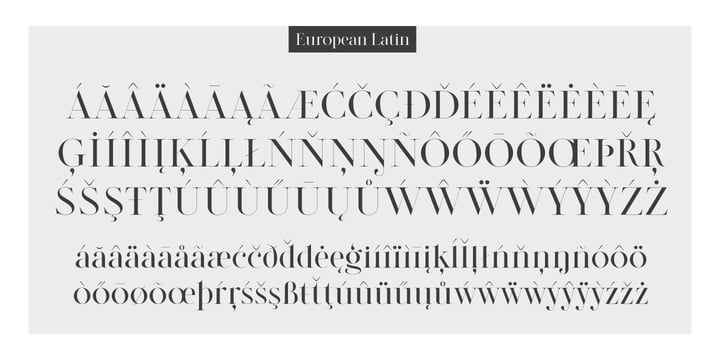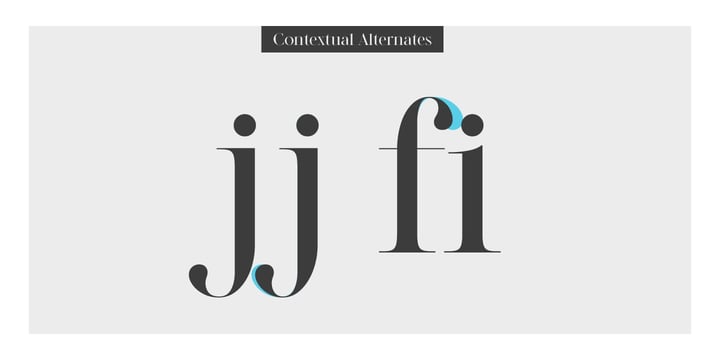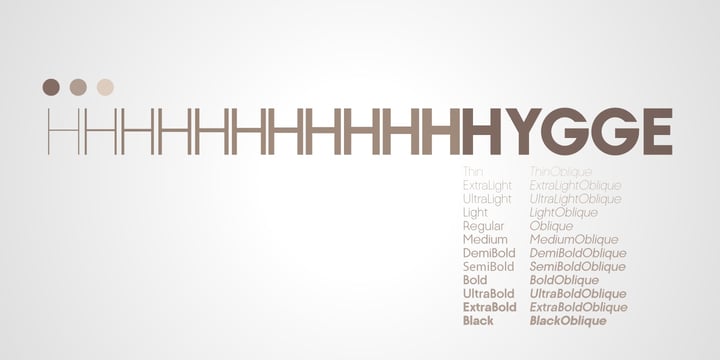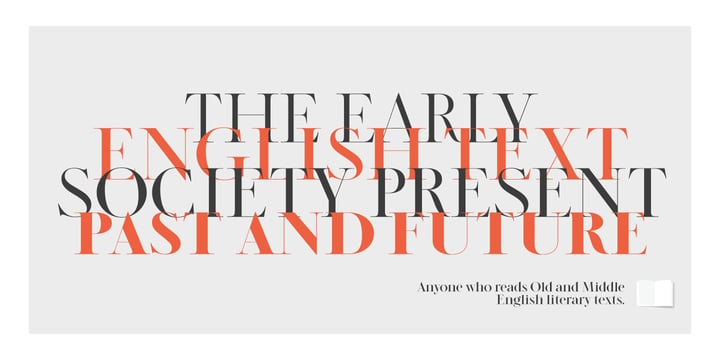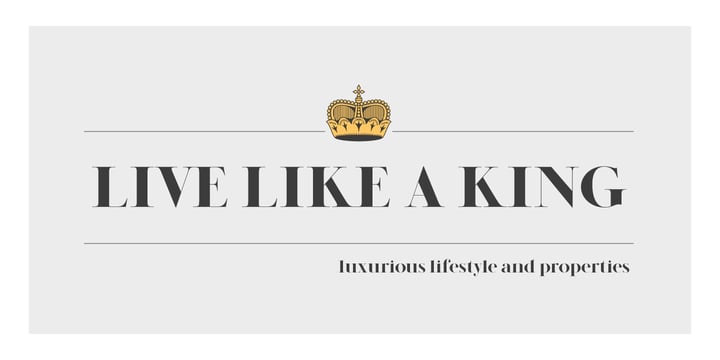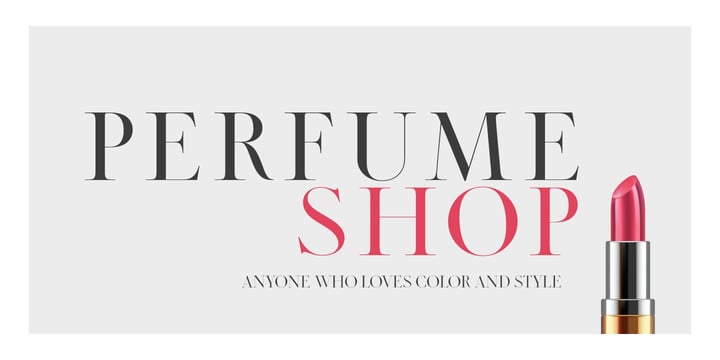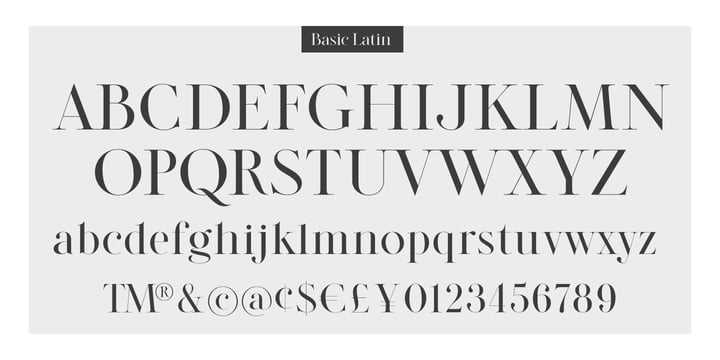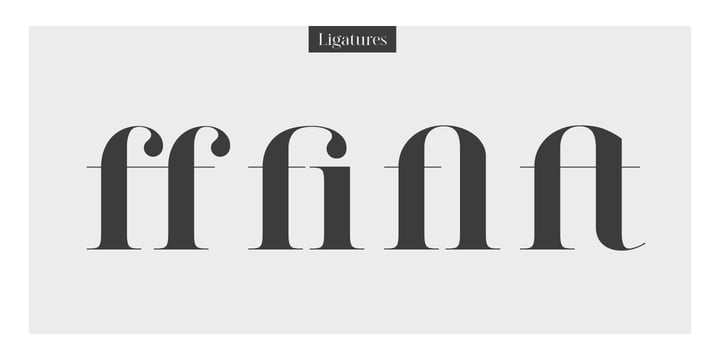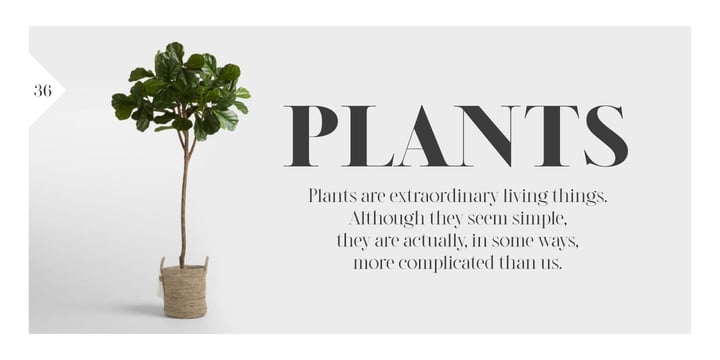
Modern Elegance Set
A refined collection of high-contrast serif and modern thin sans serif typefaces designed for creators who value versatility and sophistication.
This bundle brings together a curated selection of elegant fonts — from striking, high-fashion serifs to clean, minimal sans serifs. Each typeface stands confidently on its own, offering a wide range of expressive possibilities across different styles and projects.